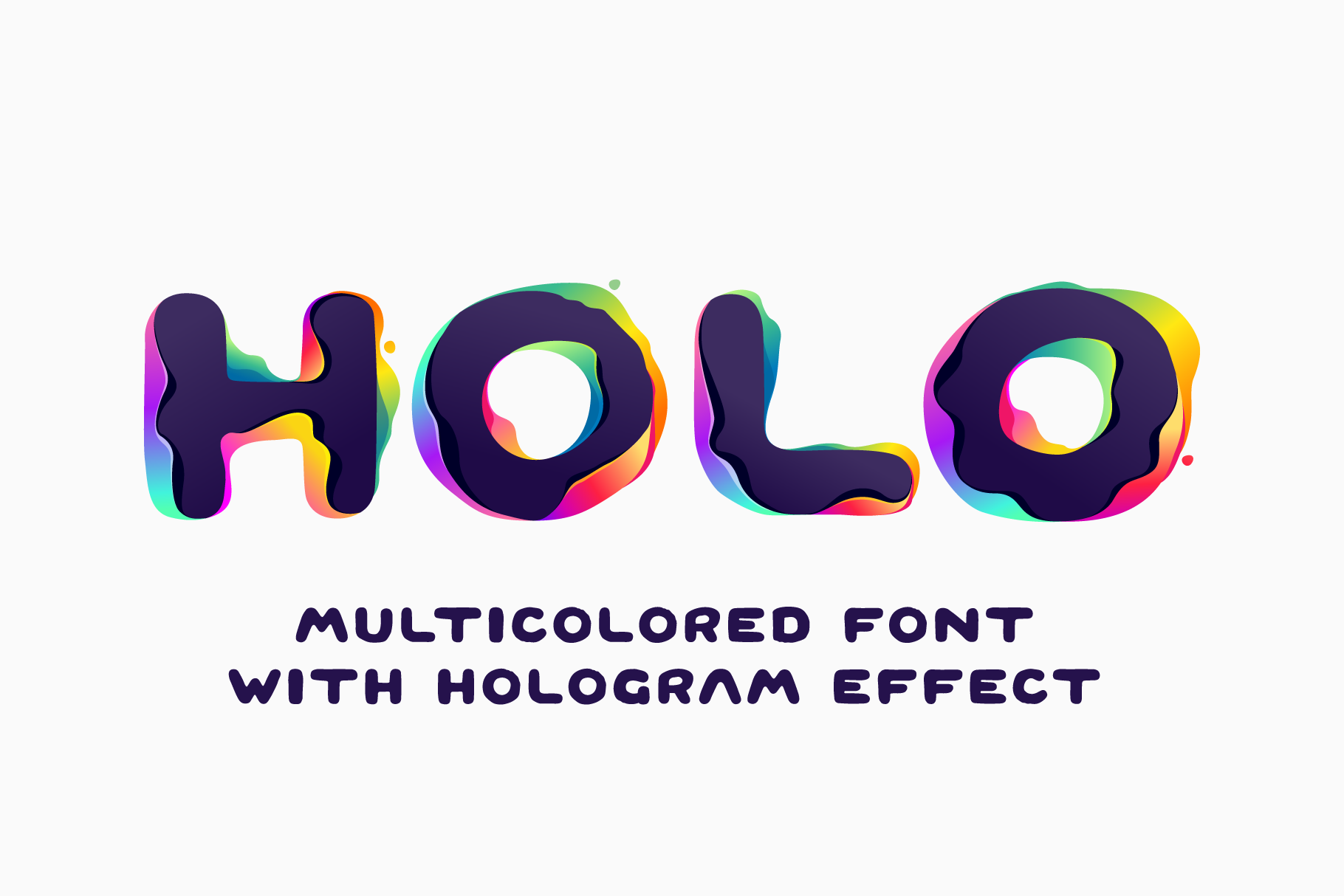
Hologram Shift colorful glitch font
Hello! Here is a hologram glitch distorted font with color shift effect. Holo Shift is a ready-colored font I've made for you. I used multicolor gradient lettering style with stereo illusion effect. This vector font perfect to use in your vibrant nightlife labels, retro video game screens, colorful electronic identity.
- Colored and regular B&W styles
- Uppercase (lowercase glyphs are same)
- Numbers and symbols